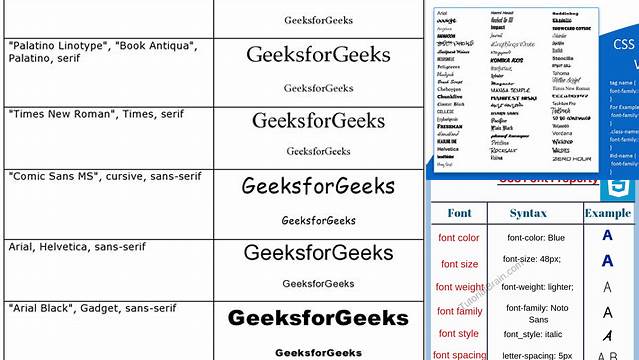
CSS Fonts: Examples, Properties & Web Font Guide
Guys, let's dive into the world of CSS fonts! Fonts are the cornerstone of web typography, influencing readability, aesthetics, and overall user experience. In CSS, specifying fonts is a breeze, allowing you to bring your designs to life with the perfect textual flair. This guide will walk you through everything you need to know about CSS fonts, from basic font properties to advanced techniques, complete with real-world examples to make your journey smoother.
When it comes to CSS fonts, selecting the right typeface is crucial for creating a visually appealing and user-friendly website. The font family you choose can significantly impact the readability and overall aesthetic of your content. CSS provides several properties that allow you to control the appearance of text, including the font-family, font-size, font-weight, and font-style. Each of these properties plays a vital role in shaping the visual presentation of your text, ensuring it aligns with your design goals and brand identity. Understanding how to use these properties effectively is essential for any web developer or designer looking to create compelling web content.
Moreover, font selection is not just about aesthetics; it's also about ensuring accessibility and usability. A well-chosen font can make your content easier to read and understand, especially for users with visual impairments. By carefully considering the font properties available in CSS, you can optimize your text for different devices and screen sizes, providing a consistent and enjoyable reading experience for all users. This includes setting appropriate font sizes, line heights, and letter spacing to enhance readability. Additionally, using web-safe fonts or importing custom fonts via services like Google Fonts can broaden your design options while maintaining performance and accessibility.
In the following sections, we'll explore the various aspects of CSS font properties in detail. We'll start with the basics, such as specifying font families and sizes, and then move on to more advanced topics, like using font weights, styles, and variants. We'll also cover how to work with web fonts, ensuring your site looks great across different browsers and devices. By the end of this guide, you'll have a solid understanding of how to use CSS fonts to enhance the visual appeal and readability of your web projects. So, let's jump in and start exploring the exciting world of CSS typography!
Basic CSS Font Properties
Let's explore the fundamental CSS font properties that allow you to control the appearance of text on your web pages. These properties include font-family, font-size, font-weight, and font-style. Mastering these basics is crucial for crafting effective typography that enhances both the visual appeal and readability of your content. Each property serves a unique purpose, and understanding how to use them together will give you the flexibility to create the desired look and feel for your text.
First up, we have the font-family property, which is arguably the most important when it comes to styling fonts. The font-family property allows you to specify a list of font families, acting as a fallback system. The browser will try to use the first font in the list, and if it's not available, it moves to the next, and so on. This ensures that your text always has a legible font, even if the user's system doesn't have your preferred font installed. It's best practice to include a generic font family (like serif, sans-serif, monospace, cursive, or fantasy) at the end of your list to provide a final fallback option. This approach ensures cross-browser compatibility and a consistent user experience.
Next, let's talk about font-size. The font-size property determines the size of your text. You can specify font sizes using various units, such as pixels (px), ems (em), rems (rem), percentages (%), and viewport units (vw, vh). Pixels provide absolute sizing, while ems and rems are relative units, making them ideal for responsive designs. Ems are relative to the font size of the element, while rems are relative to the root element’s font size. Percentages are relative to the parent element’s font size. Viewport units are relative to the size of the viewport, allowing text to scale proportionally with the screen size. Choosing the right unit depends on your design needs and how you want your text to scale across different devices. Using relative units like ems and rems is generally recommended for creating responsive and accessible websites.
Moving on to font-weight, this property controls the boldness of your text. You can use numeric values (100 to 900, in increments of 100) or keywords (normal, bold, bolder, lighter) to specify the font weight. normal corresponds to 400, and bold corresponds to 700. Using different font weights can help you create visual hierarchy and emphasize important parts of your content. For example, you might use font-weight: bold; for headings and subheadings to make them stand out from the body text. The font-weight property is a powerful tool for adding emphasis and structure to your text, making it more readable and engaging.
Lastly, we have font-style, which allows you to make your text italic or oblique. The most common values are normal, italic, and oblique. italic typically uses a font’s italic typeface if available, while oblique artificially slants the text. If you want to emphasize a word or phrase, using font-style: italic; can be an effective way to do so. However, it's important to use italics sparingly, as overusing them can diminish their impact and make your text harder to read. The font-style property is best used to highlight specific words or phrases, such as foreign words, book titles, or quotes.
Understanding these basic CSS font properties is the first step in mastering typography on the web. By combining these properties effectively, you can create visually appealing and highly readable text that enhances the overall user experience of your website. So, experiment with these properties, try different values, and see how they impact the look and feel of your text. The possibilities are endless!
Advanced CSS Font Properties
Alright, guys, let's level up our font game! Beyond the basics, CSS offers advanced font properties that provide even greater control over your text's appearance. These include font-variant, font-stretch, and font, the shorthand property. By mastering these, you can fine-tune your typography to create polished and professional designs. Understanding these properties will help you create more visually appealing and readable content.
Let's kick things off with font-variant. This property allows you to control the use of different font variants, such as small caps and old-style numerals. The most commonly used value is small-caps, which displays lowercase letters as smaller uppercase letters. This can be particularly useful for headings or introductory paragraphs to add a touch of elegance and sophistication. Other values include oldstyle-nums, lining-nums, tabular-nums, and proportional-nums, which control the appearance of numbers. oldstyle-nums displays numbers with varying heights, while lining-nums displays numbers with uniform heights. tabular-nums ensures numbers have the same width, which is useful for tables and financial reports. proportional-nums makes numbers have proportional widths. By using these variants, you can enhance the readability and visual appeal of your text in specific contexts. The font-variant property is a powerful tool for fine-tuning the appearance of your text and creating a more polished and professional look.
Next, we'll explore font-stretch. This property lets you adjust the width of the font, making it appear wider or narrower than its normal form. Values range from ultra-condensed to ultra-expanded, with normal as the default. Using font-stretch can be useful for fitting text into tight spaces or for creating a specific visual effect. However, it's important to use this property sparingly, as extreme stretching can negatively impact readability. For example, you might use font-stretch: condensed; to fit a long headline into a limited space, or font-stretch: expanded; to create a dramatic effect. The key is to balance the visual impact with the readability of the text. The font-stretch property is a versatile tool for adjusting the width of your text, but it should be used judiciously to avoid compromising readability.
Finally, let's discuss the font shorthand property. This is a convenient way to set multiple font properties in a single declaration. The font property can include font-style, font-variant, font-weight, font-size, line-height, and font-family. The order is important: font-style, font-variant, and font-weight can be specified in any order before font-size and font-family. font-size and font-family are required, and line-height is optional but should be included directly after font-size, separated by a forward slash. For example:
font: italic small-caps bold 16px/1.5 Arial, sans-serif;
This single line sets the font style to italic, the variant to small caps, the weight to bold, the size to 16 pixels, the line height to 1.5, and the font family to Arial, with sans-serif as a fallback. Using the font shorthand property can make your CSS cleaner and more concise, but it's important to remember the correct order and syntax to avoid errors. This property is a great way to streamline your CSS and make it more readable. By combining multiple font properties into a single declaration, you can save time and effort while maintaining control over the appearance of your text.
By mastering these advanced CSS font properties, you can take your typography skills to the next level. Experiment with font-variant, font-stretch, and the font shorthand property to create visually stunning and highly readable text. These properties offer a wide range of possibilities for fine-tuning the appearance of your text and creating a more polished and professional design.
Working with Web Fonts
Web fonts have revolutionized web typography, allowing you to use custom fonts that aren't necessarily installed on users' systems. This opens up a world of design possibilities, but it's crucial to implement web fonts correctly to ensure performance and compatibility. Let's explore how to use web fonts effectively, including importing them via services like Google Fonts and using the @font-face rule.
One of the easiest ways to use web fonts is through services like Google Fonts. Google Fonts offers a vast library of free, open-source fonts that you can easily incorporate into your website. To use Google Fonts, simply head over to the Google Fonts website, choose the fonts you like, and embed the provided code into your HTML. Google Fonts handles the hosting and delivery of the font files, making the process seamless. When you select a font on Google Fonts, you'll be given a <link> tag to add to your HTML <head>. This tag tells the browser to download the font files from Google's servers. You'll also be provided with CSS rules to apply the font to your elements. Using Google Fonts is a convenient and efficient way to add custom fonts to your website without having to worry about hosting and serving the font files yourself. This service ensures that your fonts are delivered quickly and efficiently, enhancing the user experience.
Another method for using web fonts is the @font-face rule. This CSS at-rule allows you to define custom fonts and their locations. You'll need to have the font files in various formats (e.g., .woff, .woff2, .ttf, .eot) to ensure cross-browser compatibility. The @font-face rule specifies the font family name, the source URLs for the font files, and other properties like font-weight and font-style. Here’s an example:
@font-face {
font-family: 'MyCustomFont';
src: url('fonts/MyCustomFont.woff2') format('woff2'),
url('fonts/MyCustomFont.woff') format('woff'),
url('fonts/MyCustomFont.ttf') format('truetype');
font-weight: normal;
font-style: normal;
}
body {
font-family: 'MyCustomFont', sans-serif;
}
In this example, we're defining a custom font named 'MyCustomFont' and specifying the URLs for the font files in different formats. The format() function tells the browser the format of the font file. We then apply this font to the body element. Using the @font-face rule gives you more control over the font loading process and allows you to use fonts that aren't available on services like Google Fonts. This method is particularly useful if you have a specific font that you want to use or if you need to comply with licensing restrictions.
When working with web fonts, it’s crucial to consider performance. Large font files can slow down your website, so it’s best to use optimized font formats like .woff2, which provides the best compression and browser support. Additionally, you can use techniques like font subsetting to include only the characters you need, further reducing file size. Font subsetting involves removing unnecessary characters from the font file, which can significantly reduce its size. This is especially useful for websites that use a limited character set. Another performance optimization technique is to use font-display property, which controls how the font is displayed while it's loading. Values like swap, fallback, and optional can help you avoid the flash of invisible text (FOIT) or flash of unstyled text (FOUT), improving the user experience.
By understanding how to import web fonts and optimize their performance, you can enhance the visual appeal of your website without sacrificing speed. Whether you choose to use Google Fonts or the @font-face rule, web fonts offer a powerful way to create unique and engaging typography. So, experiment with different fonts and techniques to find the perfect balance between aesthetics and performance.
Best Practices for Using CSS Fonts
Using CSS fonts effectively involves more than just picking a pretty typeface. It’s about ensuring readability, accessibility, and performance. Let's explore some best practices for using CSS fonts to create a great user experience.
First and foremost, readability is key. Choose fonts that are easy to read on screens. Generally, sans-serif fonts like Arial, Helvetica, and Open Sans are great for body text, while serif fonts like Times New Roman and Georgia can work well for headings. However, these are just guidelines, and the best font depends on your specific design and content. Consider factors like font size, line height, and letter spacing to ensure optimal readability. A font that looks stylish but is difficult to read defeats the purpose of typography. Readability should always be the top priority when selecting fonts for your website. This includes ensuring that the font size is appropriate for the target audience and that the contrast between the text and the background is sufficient.
Accessibility is another crucial consideration. Ensure your font choices provide sufficient contrast with the background color. Users with visual impairments may struggle to read text with low contrast. The WCAG (Web Content Accessibility Guidelines) recommends a contrast ratio of at least 4.5:1 for normal text and 3:1 for large text. Additionally, avoid using fonts that are too thin or too decorative, as these can be difficult to read for some users. Using semantic HTML can also improve accessibility by providing a clear structure for screen readers to interpret. Always test your font choices with accessibility tools to ensure that your website is usable by everyone. This includes testing with different screen resolutions and zoom levels to ensure that the text remains legible.
Performance is also a vital factor. As mentioned earlier, large font files can slow down your website. Use optimized font formats like .woff2 and consider using font subsetting to reduce file size. Limit the number of font variations (e.g., bold, italic) you use, as each variation requires a separate font file. Loading multiple font files can significantly impact page load time, so it's important to strike a balance between visual appeal and performance. Use font loading strategies, such as the font-display property, to control how fonts are displayed while they're loading. This can help prevent the flash of invisible text (FOIT) or flash of unstyled text (FOUT), improving the user experience. Regularly monitor your website's performance and make adjustments as needed to ensure that fonts are not negatively impacting load times.
Consistency in font usage is essential for creating a professional and cohesive design. Stick to a limited number of font families (typically two or three) and use them consistently throughout your website. This helps create a visual hierarchy and makes your content easier to read. Using too many different fonts can make your website look cluttered and unprofessional. Establish a clear typography system with defined styles for headings, subheadings, body text, and other elements. This will help maintain consistency across your website and make it easier for users to navigate and understand your content. Consistency also extends to the use of font weights and styles. Use bold and italic sparingly and only when necessary to emphasize specific words or phrases.
Lastly, test your font choices across different browsers and devices. Fonts can render differently depending on the browser and operating system. What looks great on your computer might not look as good on someone else's. Use browser developer tools to inspect font rendering and make adjustments as needed. Testing on a variety of devices, including desktops, tablets, and smartphones, is crucial for ensuring a consistent user experience. Pay attention to how fonts scale on different screen sizes and adjust font sizes and line heights accordingly. Regularly review your website's typography and make updates as necessary to ensure that it continues to meet your design and accessibility goals.
By following these best practices, you can use CSS fonts to create visually appealing, accessible, and performant websites. Remember, typography is a crucial element of web design, and careful attention to font choices can significantly enhance the user experience.
We've covered a lot about CSS fonts, from the basic properties to advanced techniques and best practices. Mastering CSS fonts is essential for creating visually appealing, readable, and accessible websites. By understanding the various font properties and how to use them effectively, you can take your web typography skills to the next level.
Remember, the right font can make a huge difference in how your content is perceived. It's not just about aesthetics; it's about creating a positive user experience. Choose fonts that are easy to read, provide sufficient contrast, and align with your brand identity. Accessibility should always be a top priority, ensuring that your website is usable by everyone, regardless of their abilities. By following accessibility guidelines, you can create a more inclusive online experience for all users. This includes ensuring that font sizes are adjustable and that text remains legible at different zoom levels.
Performance is another crucial factor to consider. Optimize your font usage to minimize page load times. Use optimized font formats, consider font subsetting, and limit the number of font variations you use. Slow-loading fonts can negatively impact user experience, so it's important to strike a balance between visual appeal and performance. Regularly monitor your website's performance and make adjustments as needed to ensure that fonts are not negatively impacting load times.
Whether you're just starting out with CSS or you're an experienced developer, there's always something new to learn about fonts. Experiment with different font combinations, explore advanced font properties, and stay up-to-date with the latest web typography trends. The world of fonts is vast and ever-evolving, so continuous learning is key to mastering this important aspect of web design. By staying informed and experimenting with new techniques, you can create visually stunning and highly functional websites that stand out from the crowd.
So, go ahead and experiment with CSS fonts! Try different combinations, explore advanced properties, and see how you can transform your website's typography. With a little practice, you'll be creating beautiful and effective designs in no time. Typography is a powerful tool for enhancing the user experience, so don't be afraid to get creative and push the boundaries. By mastering CSS fonts, you can create websites that are not only visually appealing but also highly readable and accessible.